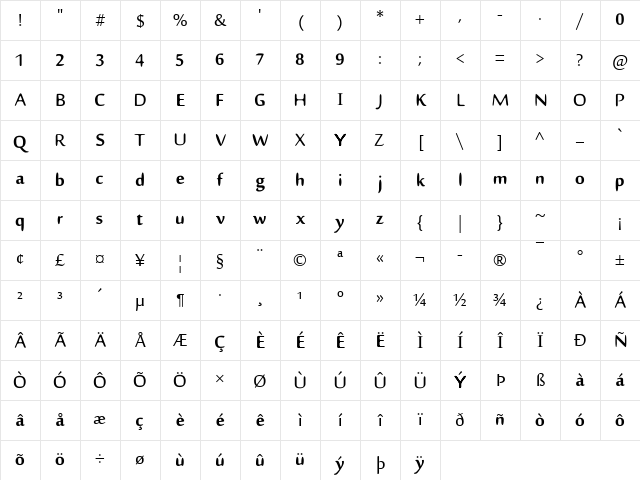
Nillambari Normal
Foundry: Nillambari,
Designer: Sifat Ahmed
Design Context for Nillambari
Nillambari is a composed and adaptable typeface that performs quietly and consistently across a wide range of design contexts.